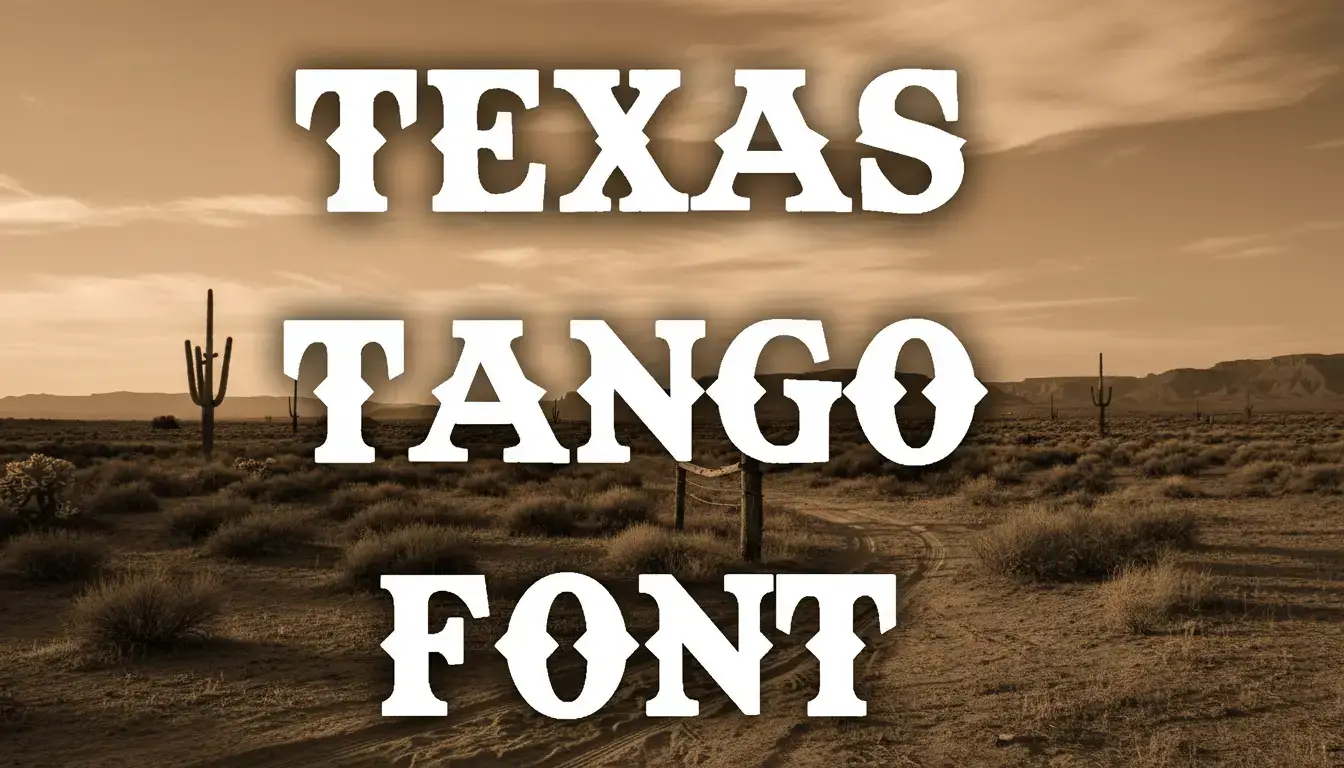
Texas Tango Font
Texas Tango
Texas Tango is a Western font made by billy argel. Its letters feel straight out of a cowboy movie, sturdy and full of old-west character. You can download it for free and test it with your own words in the preview above.
What You Can Type With Texas Tango
With complete upper and lowercase letters and all ten digits, Texas Tango is ready for real wording, not just a single headline. Everyday marks like &, !, ? and @ are there too. Thanks to its accented letters, it also works for Spanish, French, German, Portuguese and Italian, not just English.
Where Texas Tango Works Best
Texas Tango is a natural fit for rodeo posters, saloon signs and country music flyers. Try it in brown, rust or cream on a paper texture for the full old-west look.
Does Texas Tango support accented letters?
Yes. Texas Tango includes the accented letters needed for Spanish, French, German, Portuguese and Italian, so it works for more than just English.
What fonts pair well with Texas Tango?
A sturdy slab serif or a simple serif works well for the smaller text.